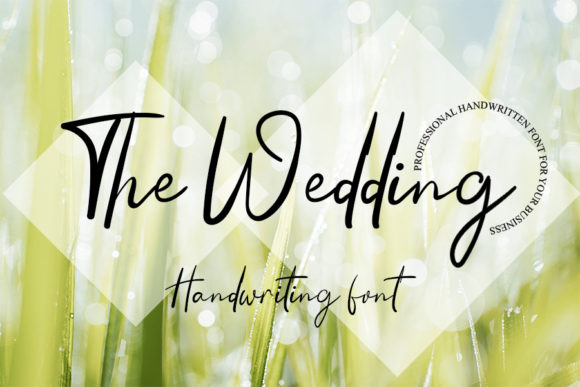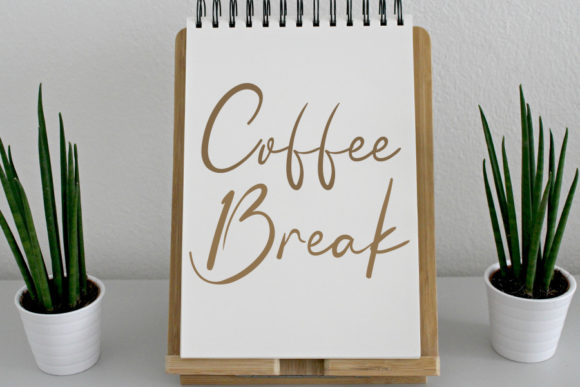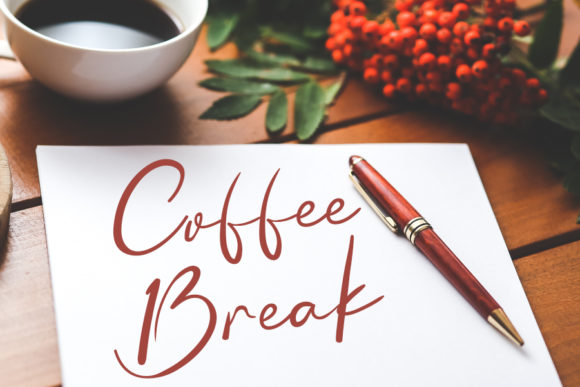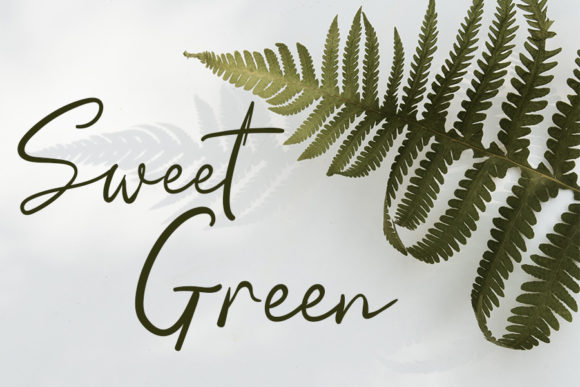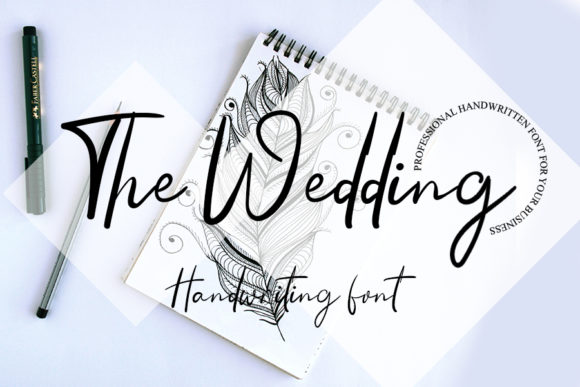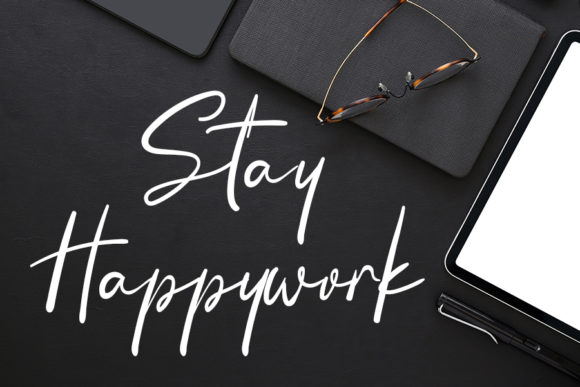
About The Wedding Font
The Wedding is a casual yet distinct script font. Fall in love with its incredibly versatile style and use it to create gorgeous wedding invitations, beautiful stationary art, eye-catching social media posts, and much more!